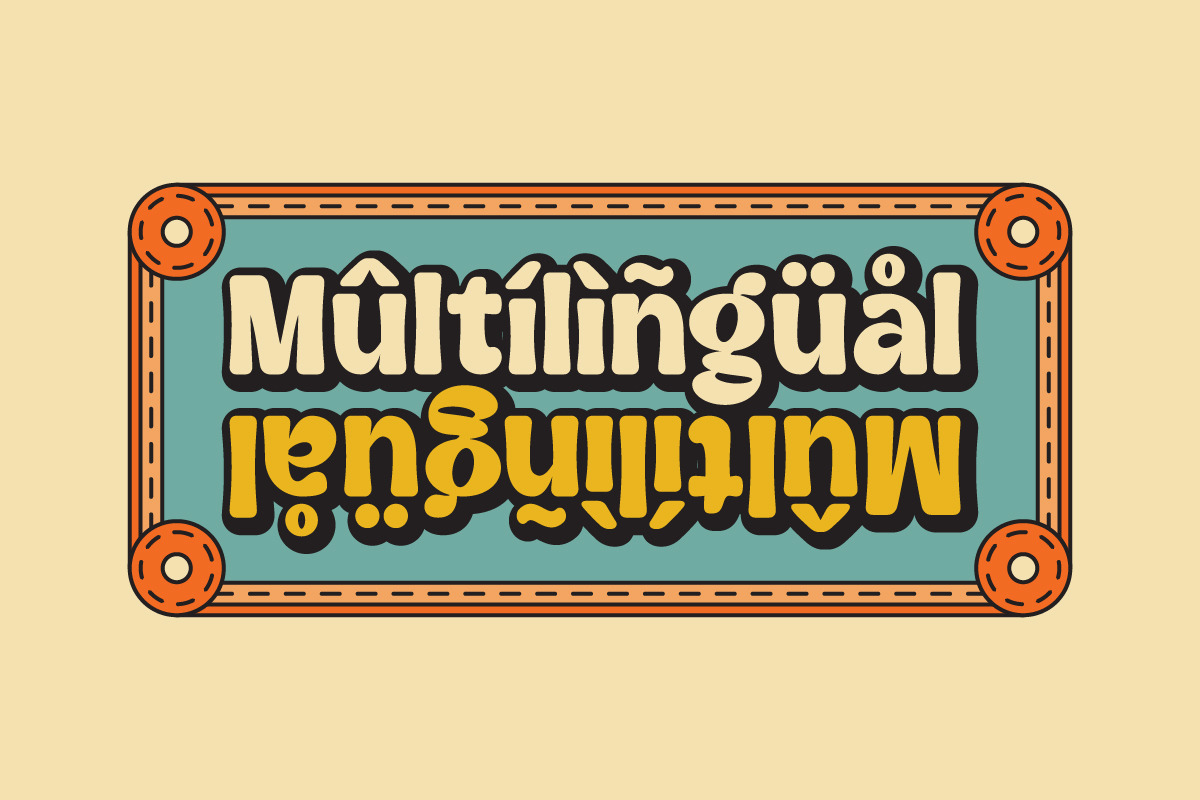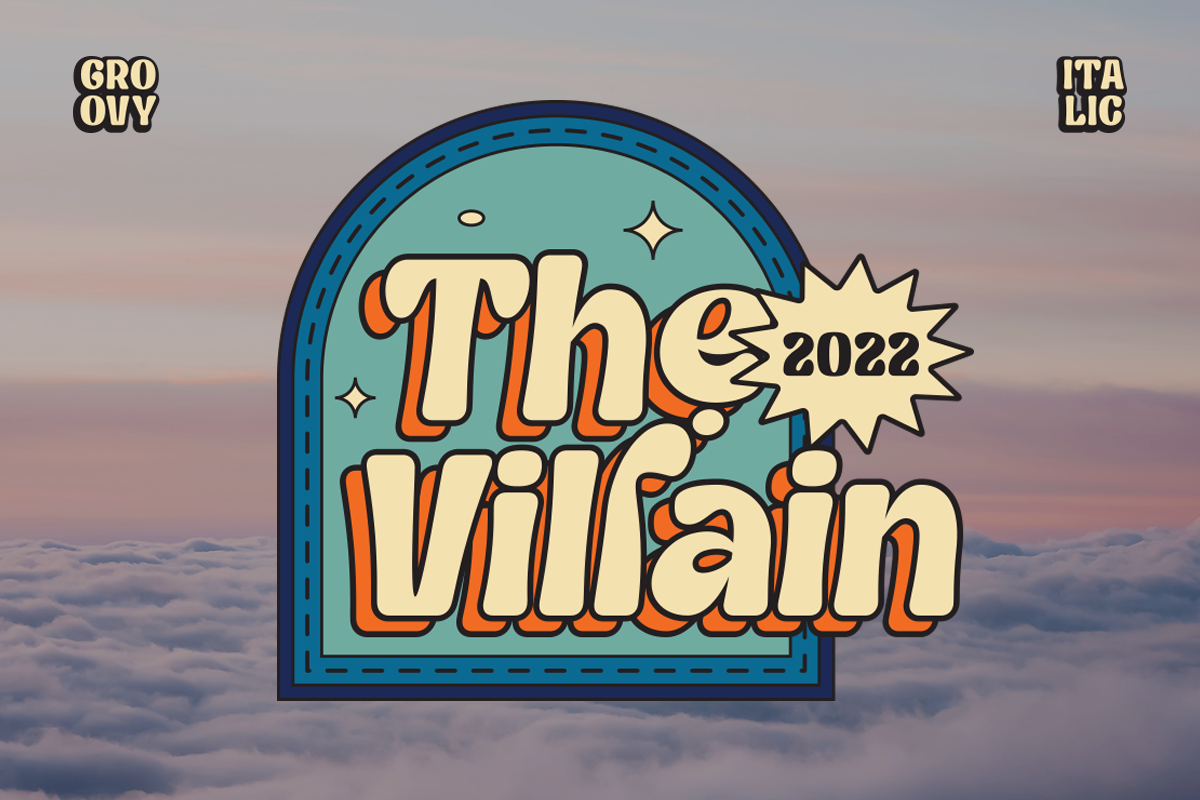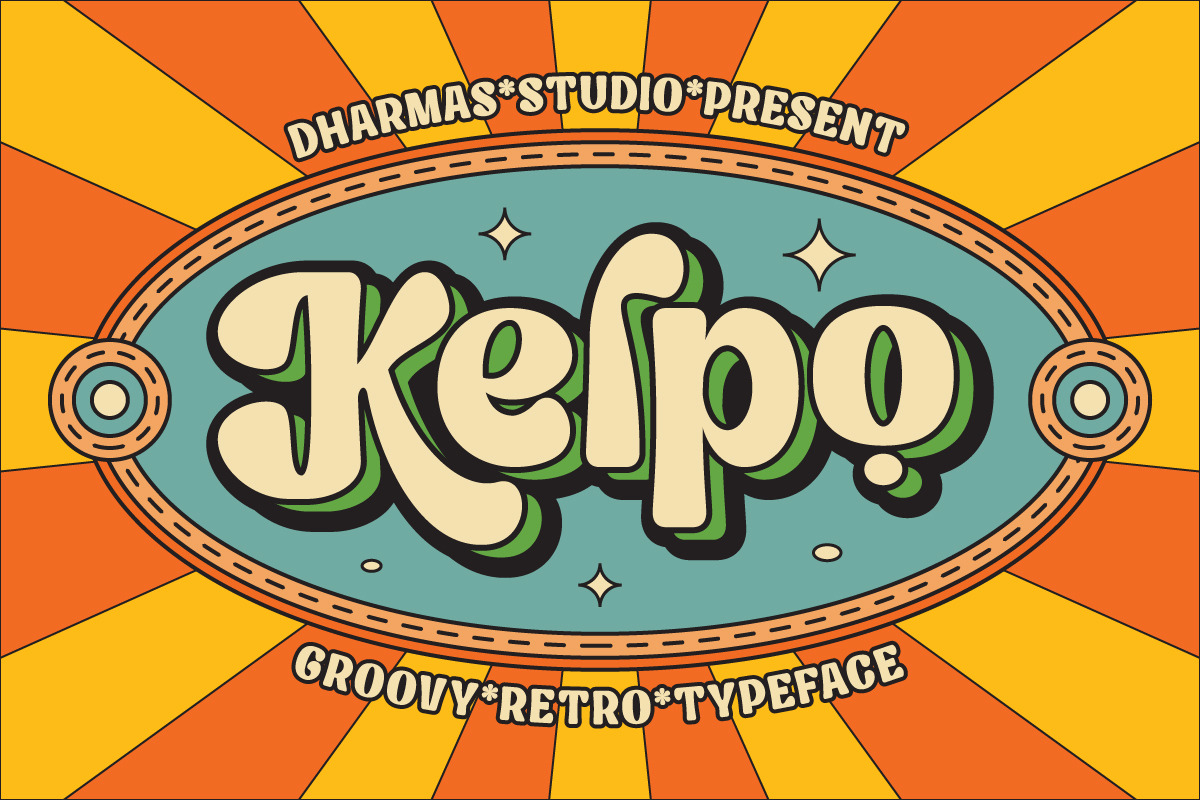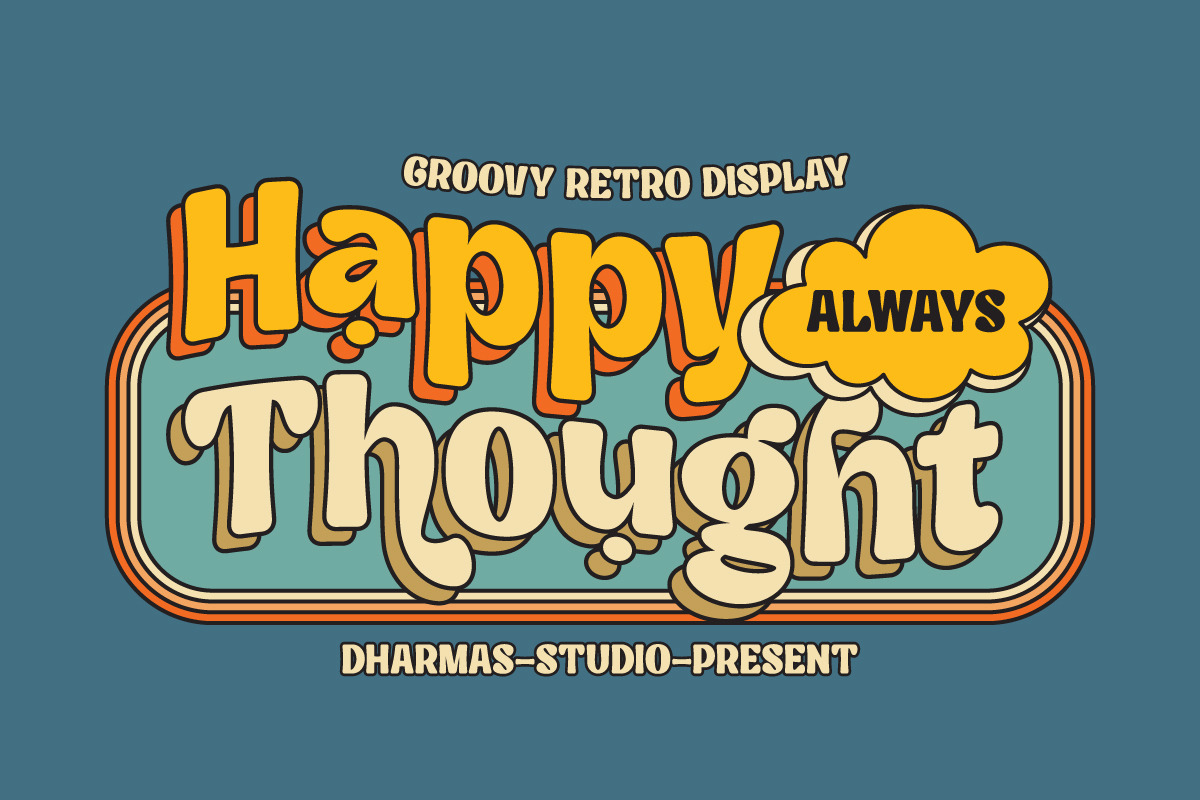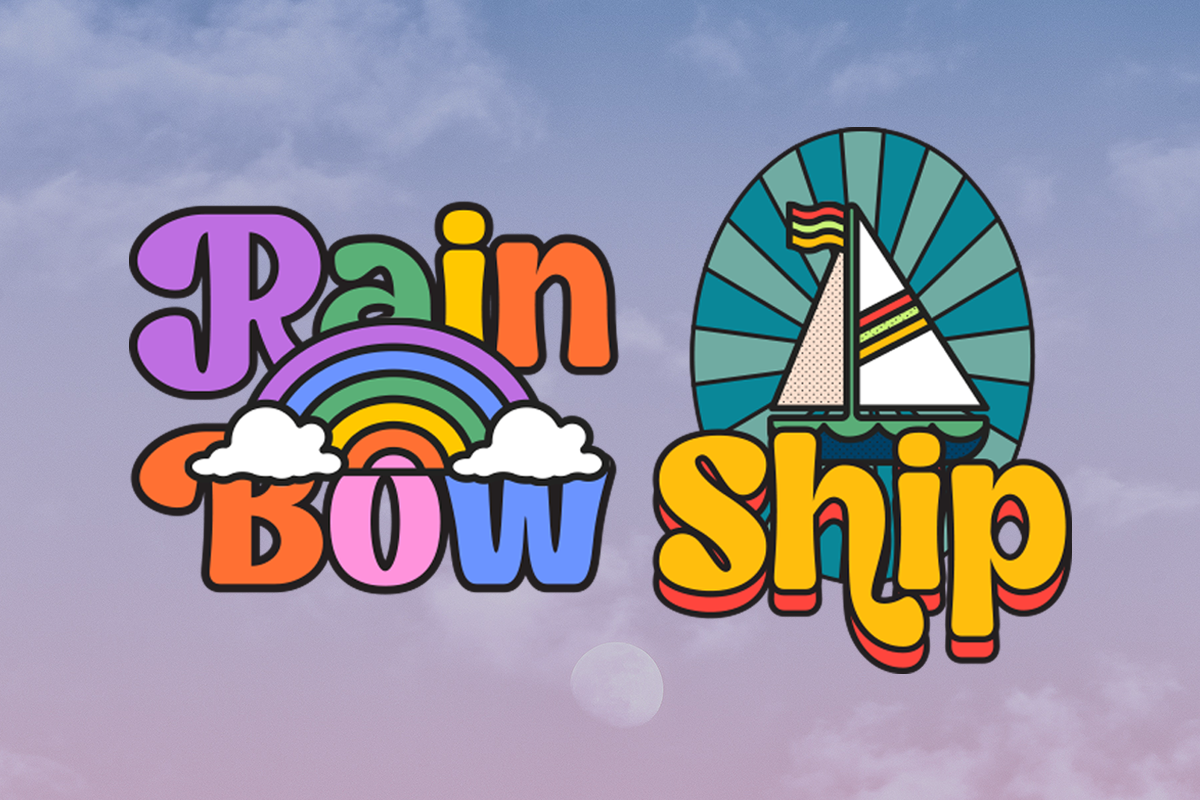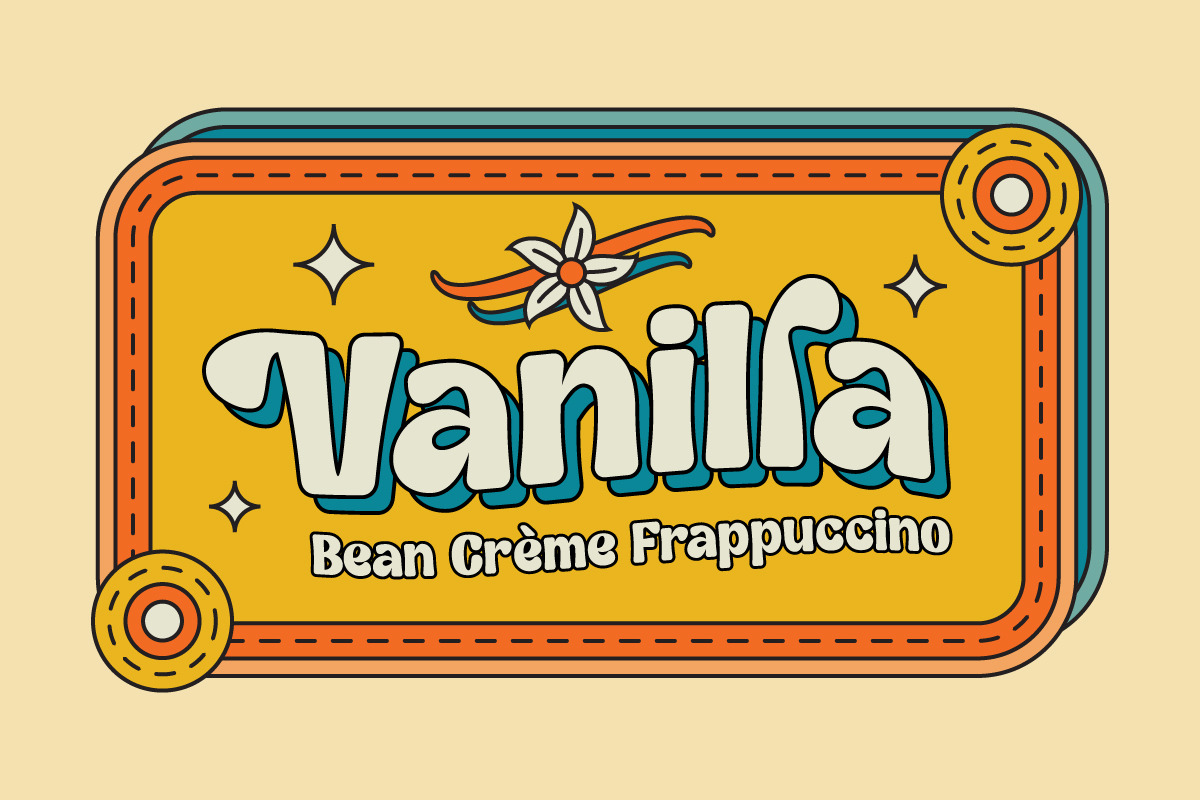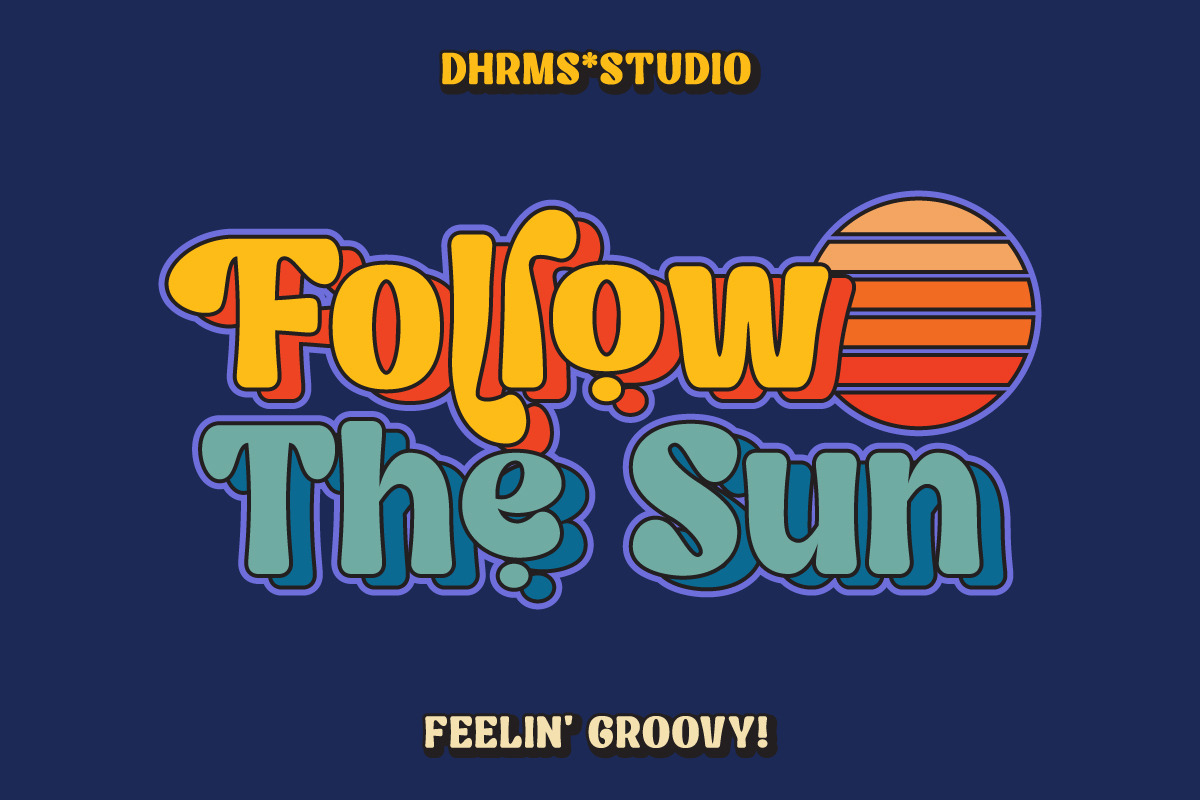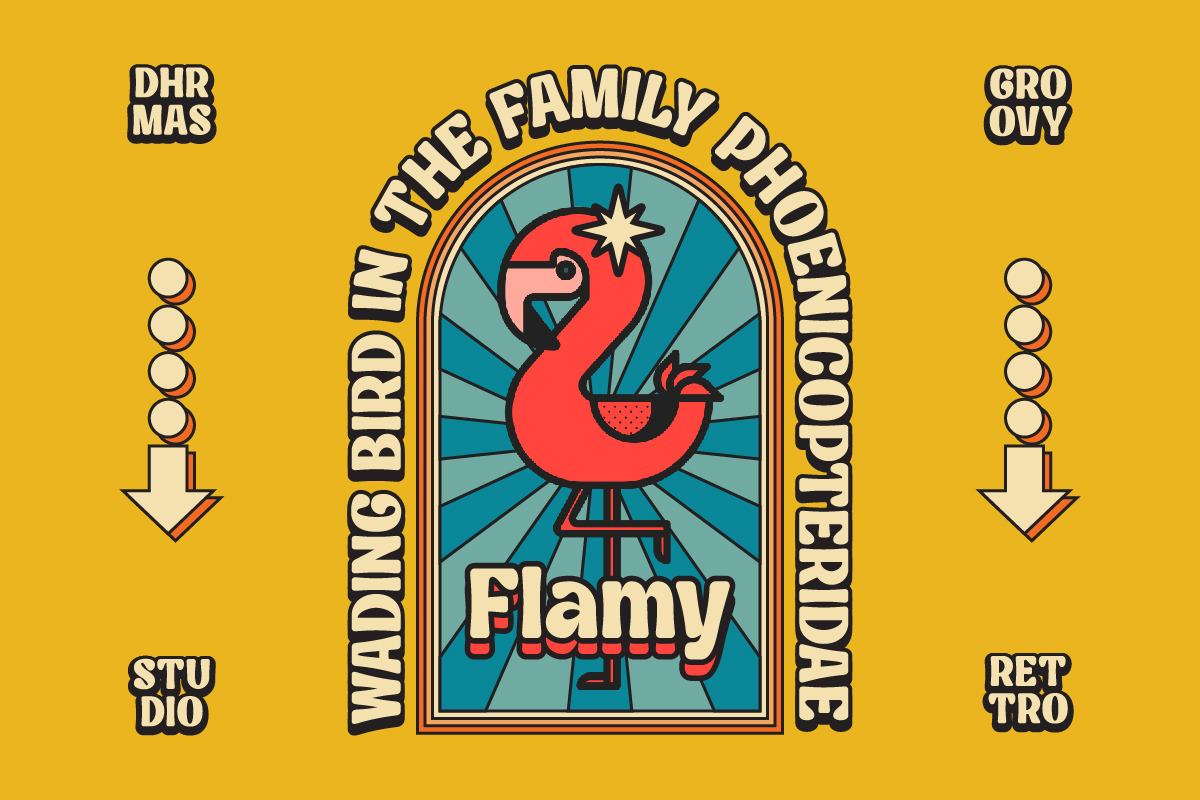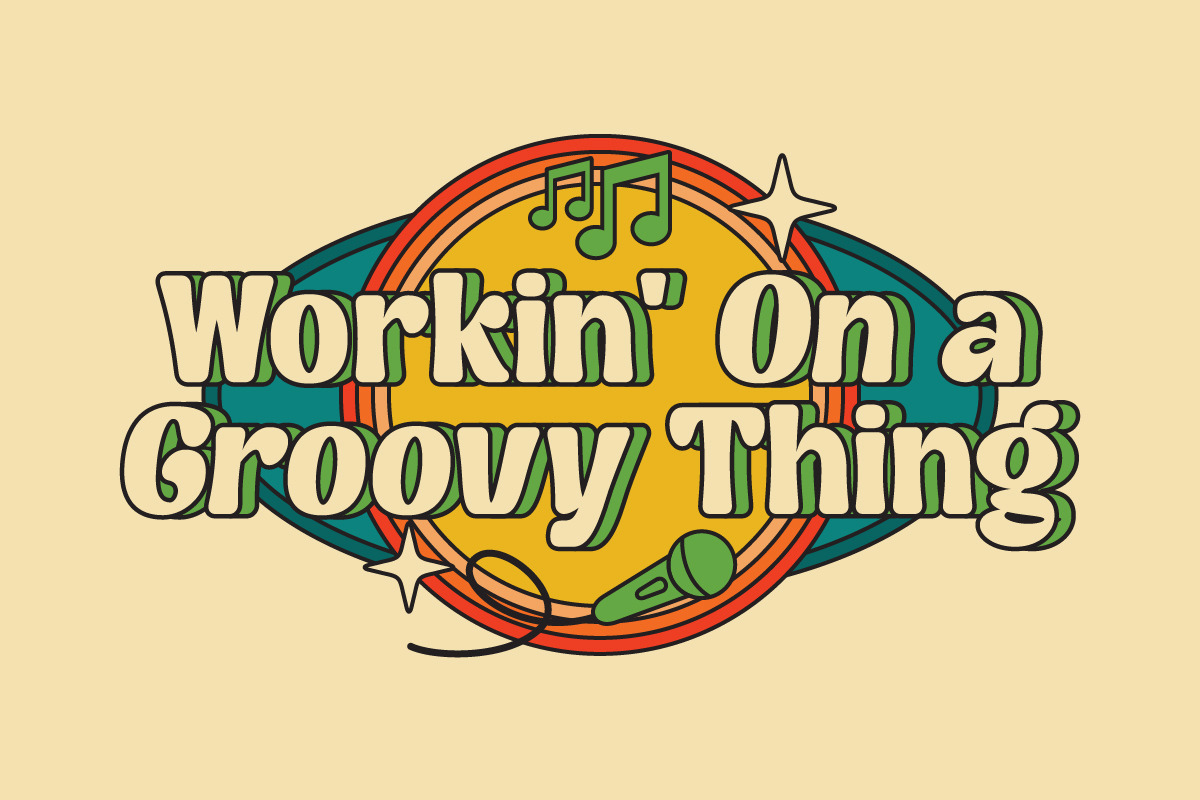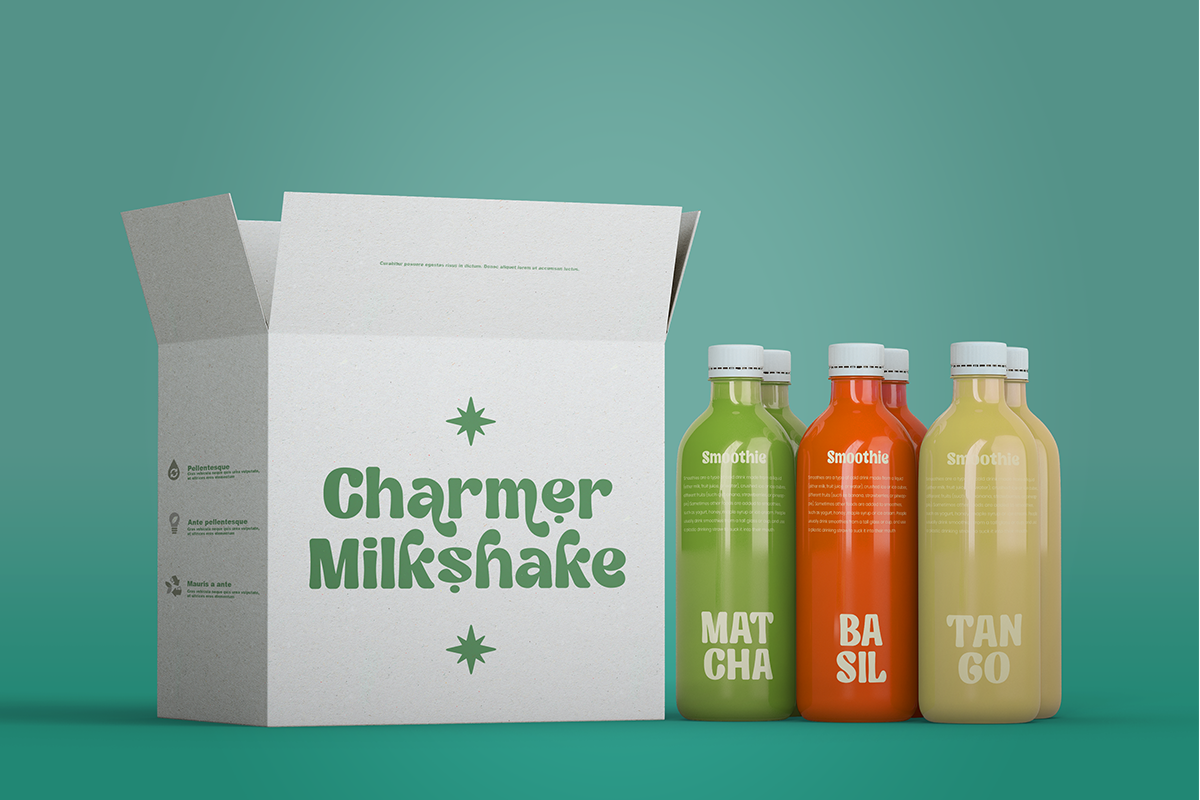
Kelpo - Groovy Retro Typeface
Please welcome our new Groovy Retro Typeface, Kelpo!
Kelpo - Created from our explorations which were inspired by 70's retro style and pop culture visual design like old comics, cartoons, and posters. The strong bold character with groovy style makes us feel retro vibes and takes us to the 70's era
Kelpo - Comes with 59 beautiful alternates which consist of 4 stylistic sets. Contains 2 styles regular and italic, this font is best used for headings, logotype, quotes, apparel design, posters, flyers, packaging, book cover, and many more.
- Letters, numbers, punctuation, multilingual support
- Has 59 beautiful alternates